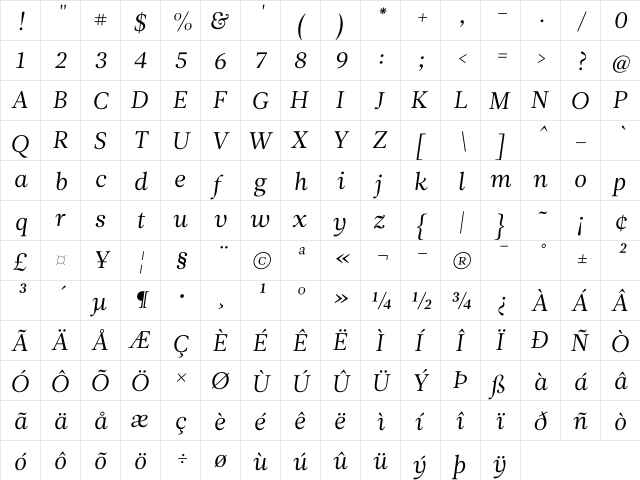
Leitura News Italic 1
| Foundry | Dino dos Santos _DSType |
| Designer | Dino dos Santos |
Design Context for Leitura News Typeface
Leitura News offers clean, dependable letterforms without strong stylistic allegiance, making it a practical choice for designers who need flexibility. Its italic angle brings a sense of urgency and motion to the letterforms.
Pro Tip: Try Leitura News for annotation and caption copy alongside an upright companion — the contrast in angle creates a dynamic but ordered typographic system.